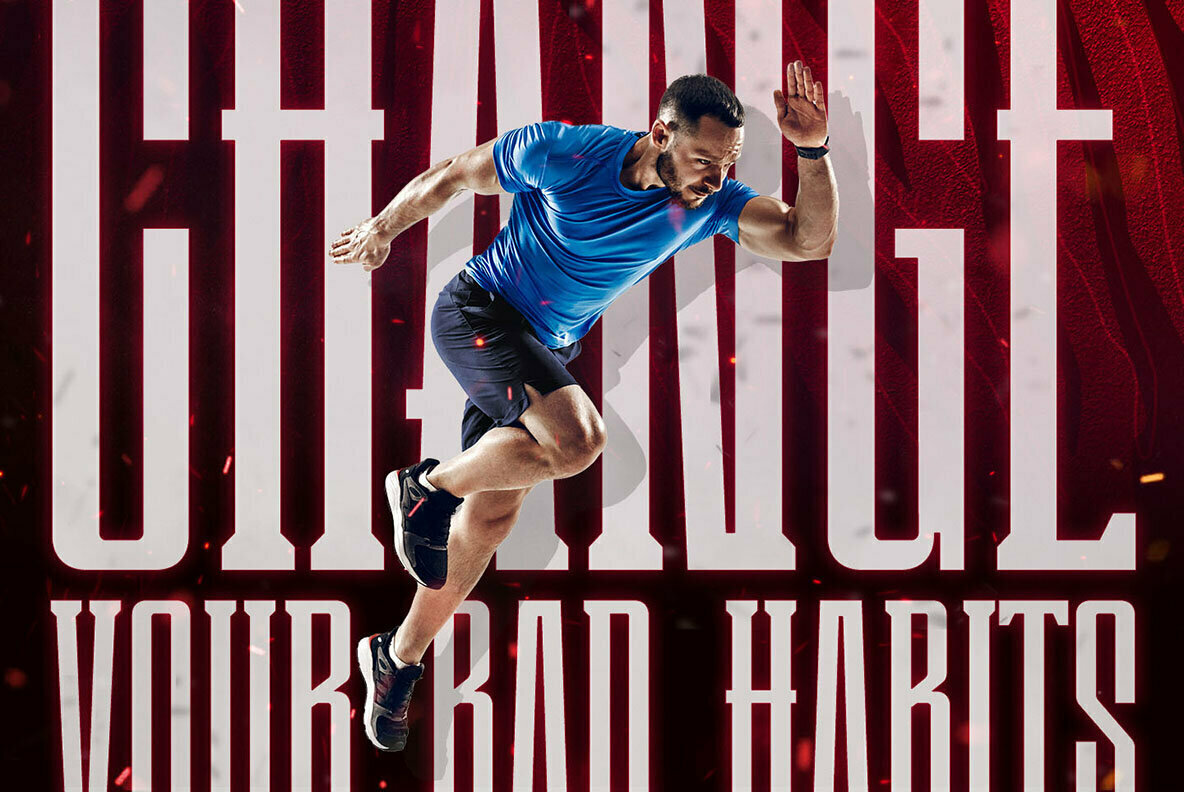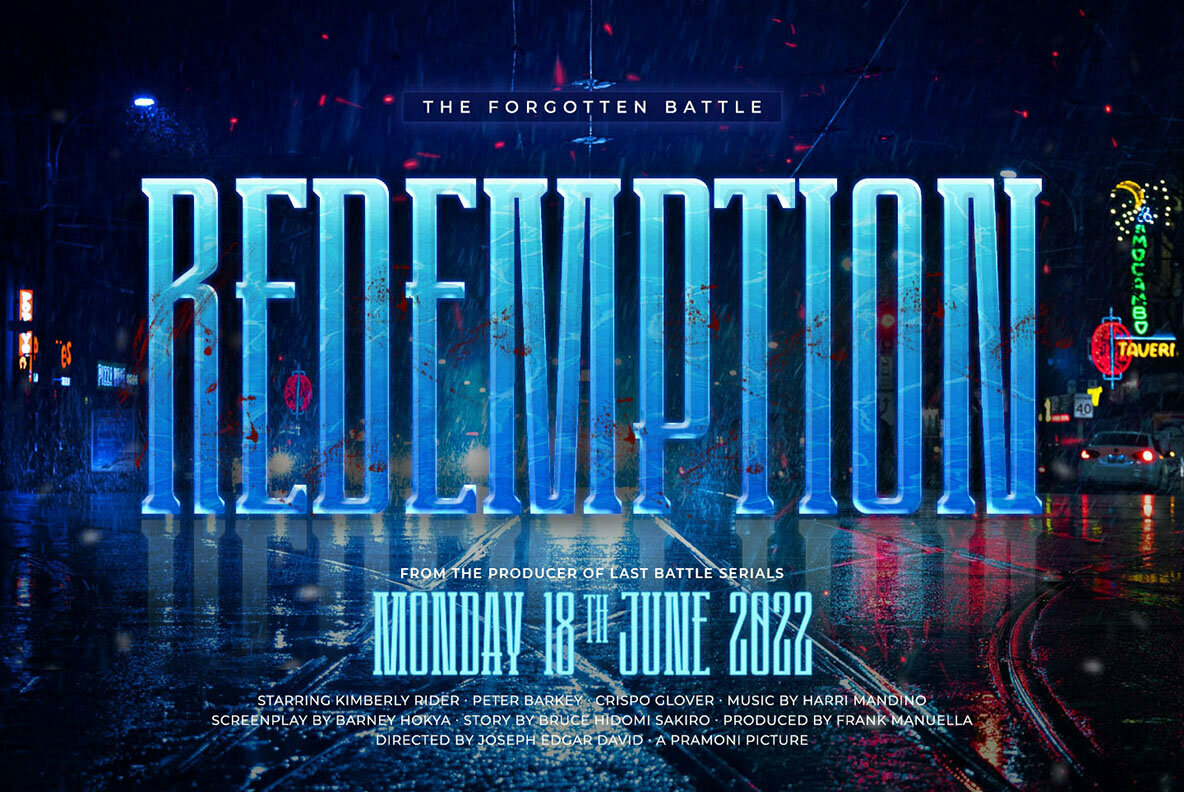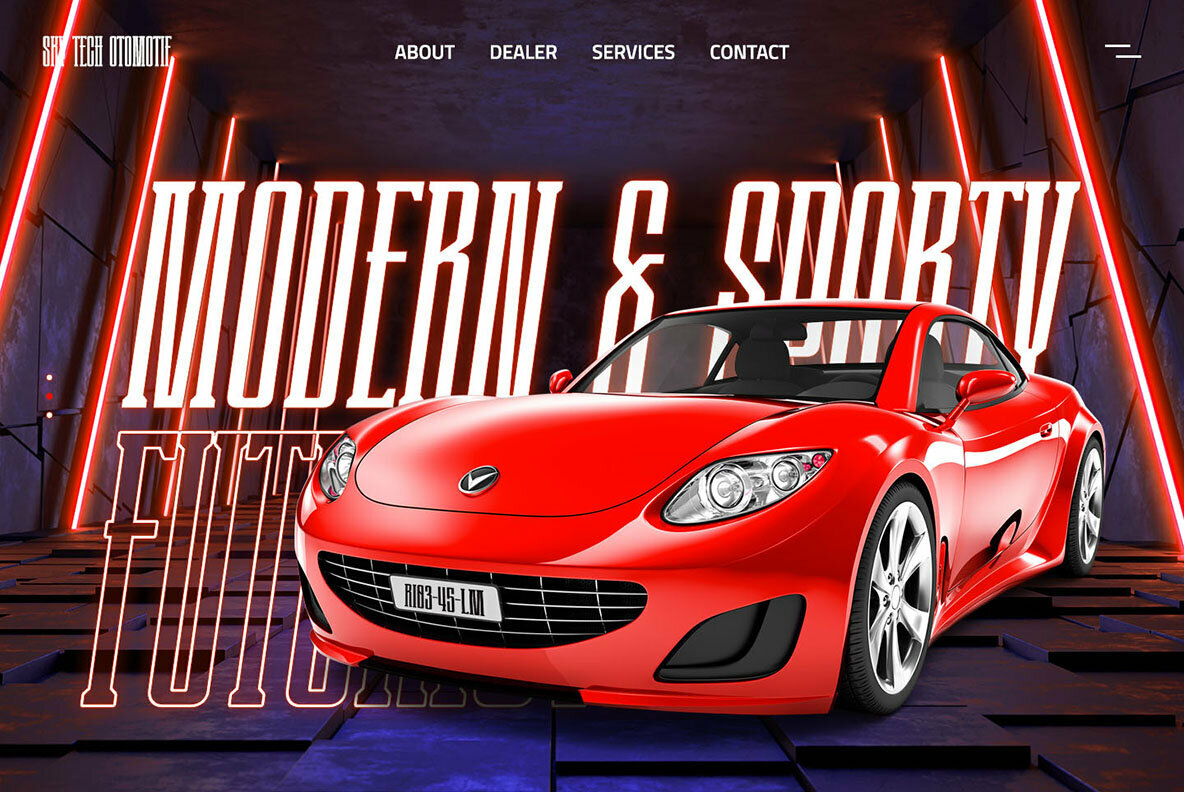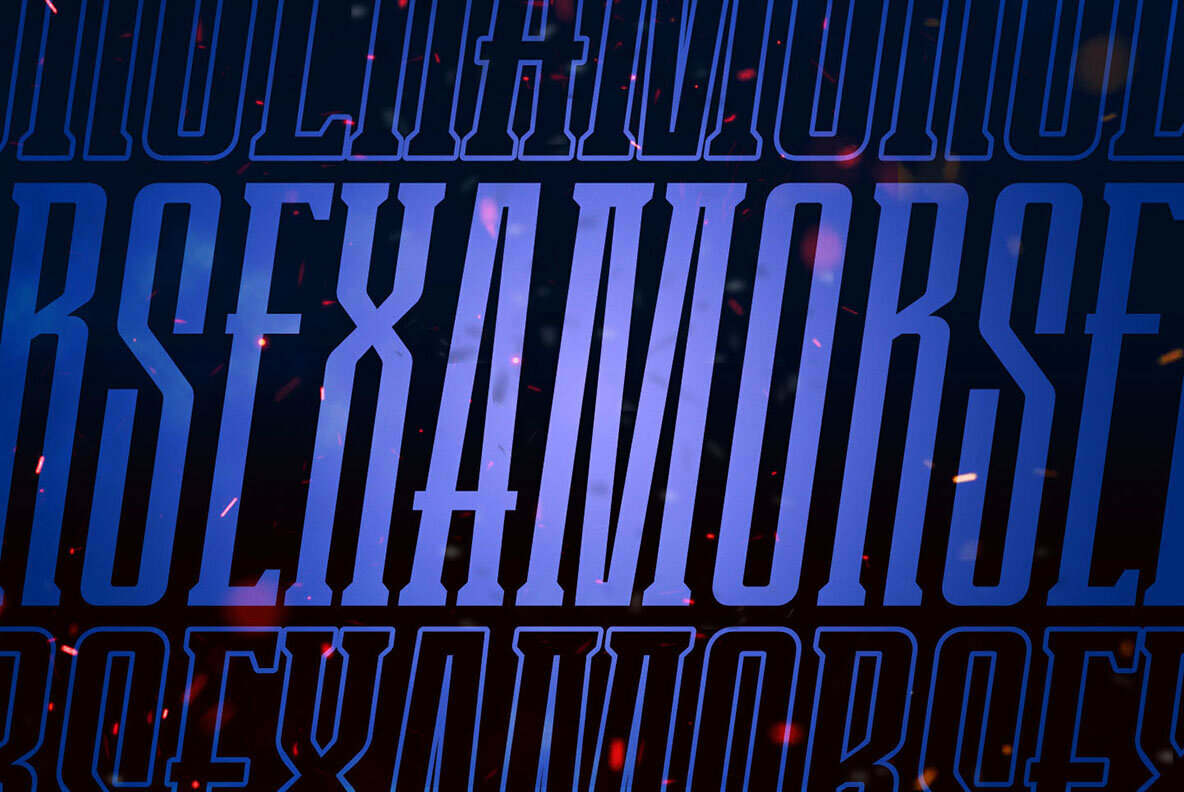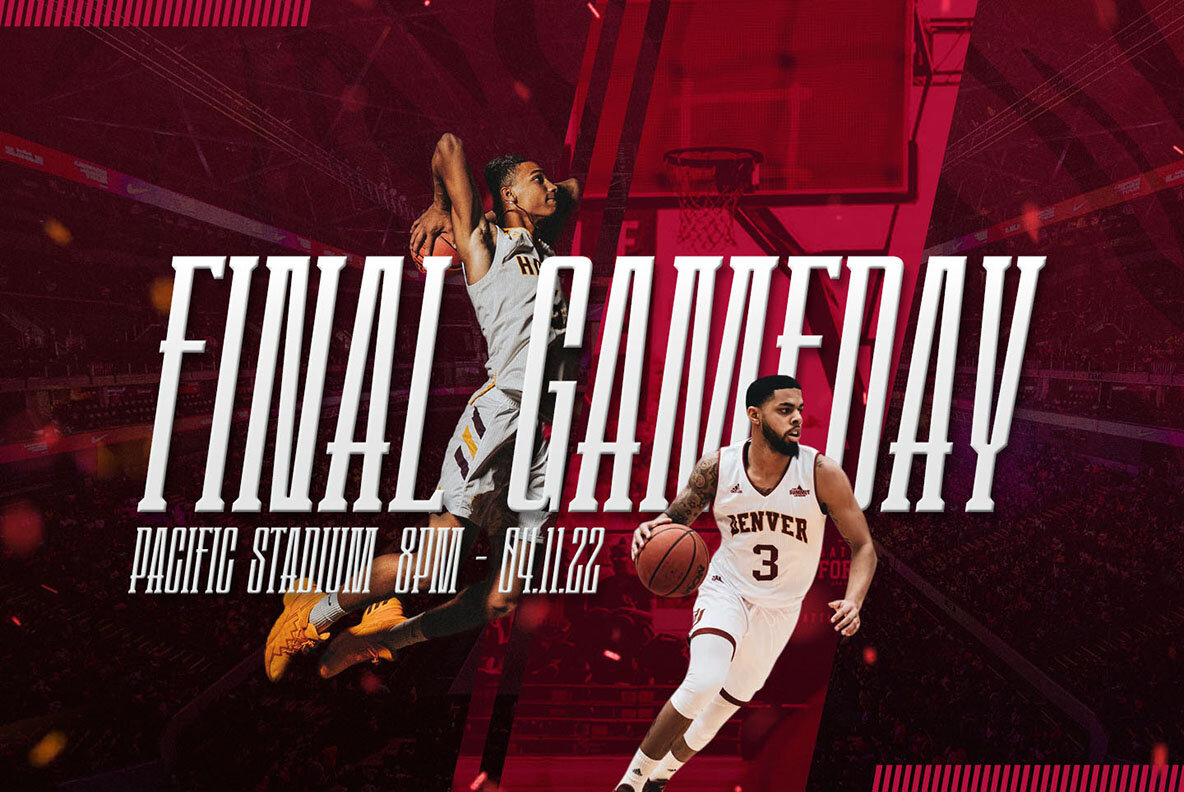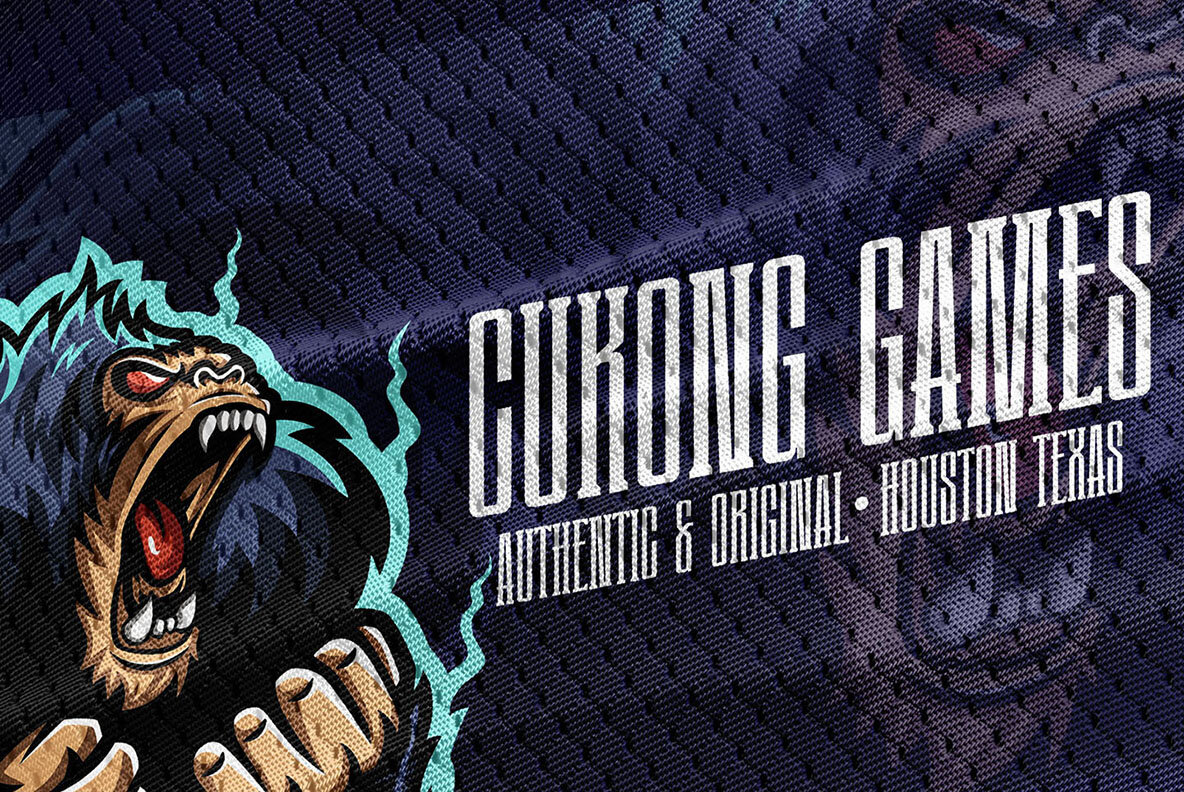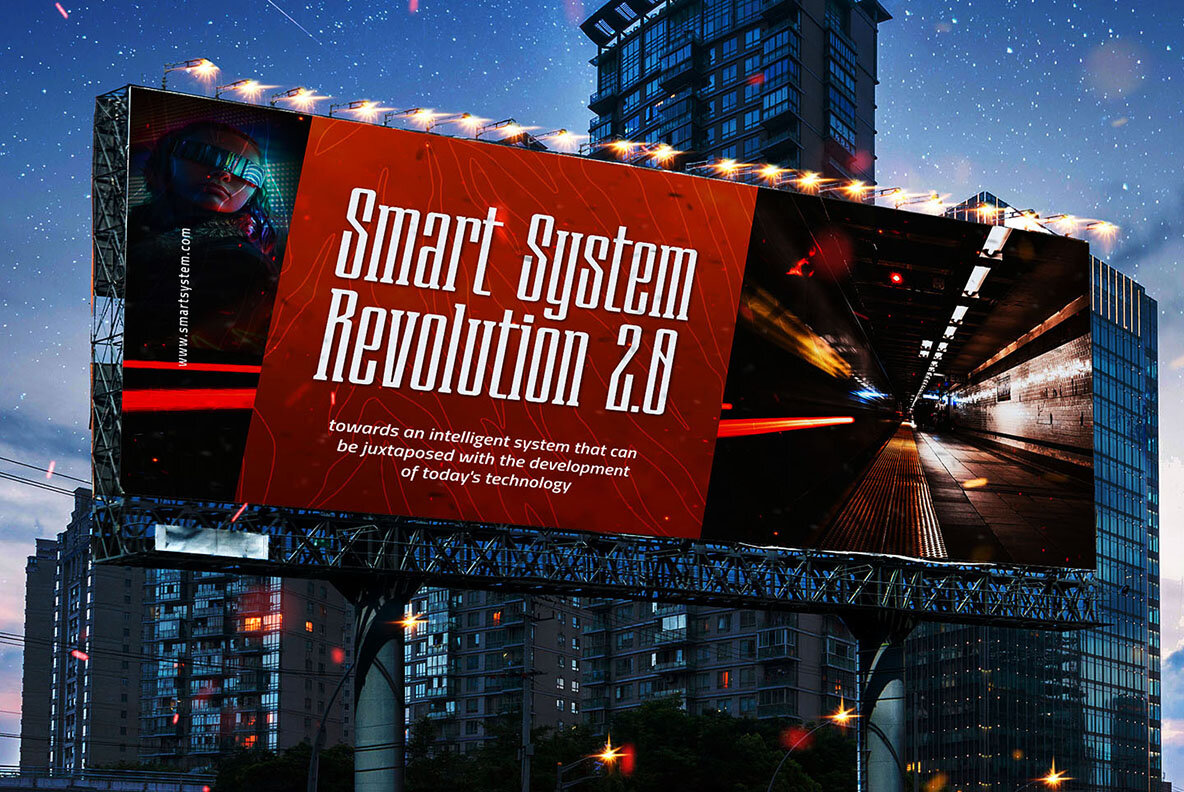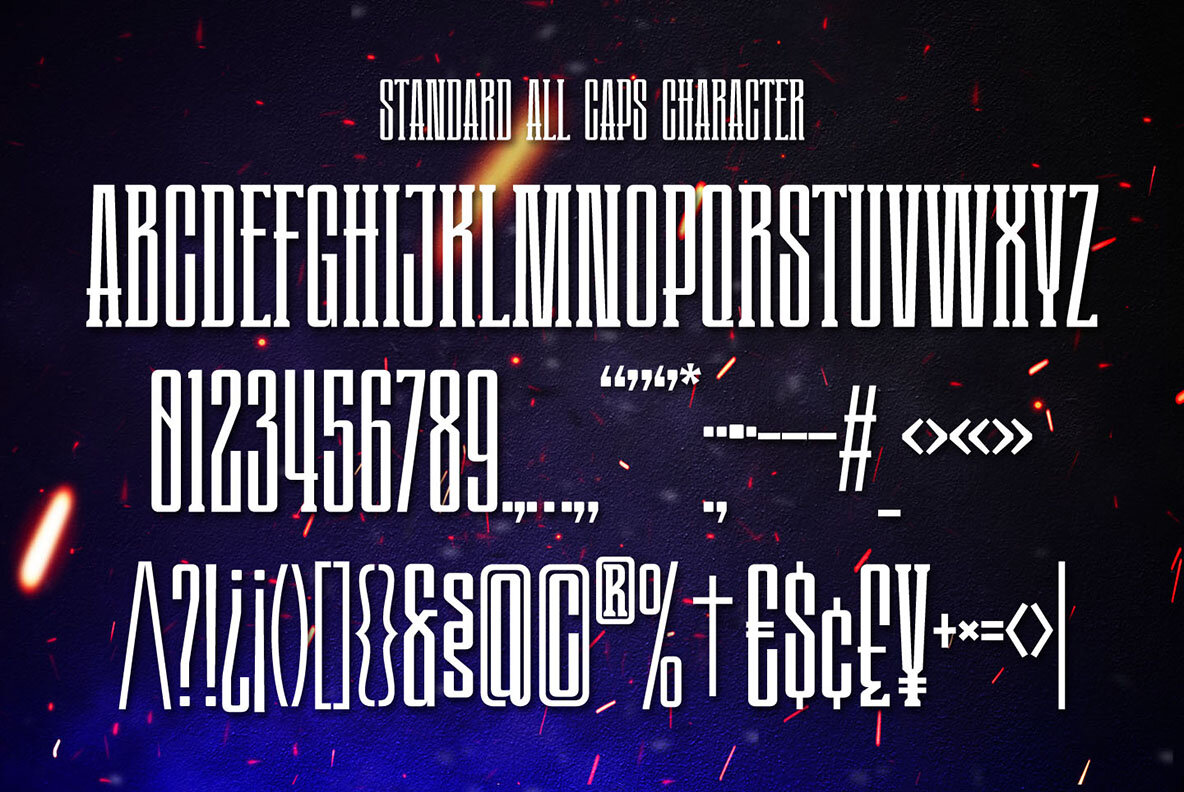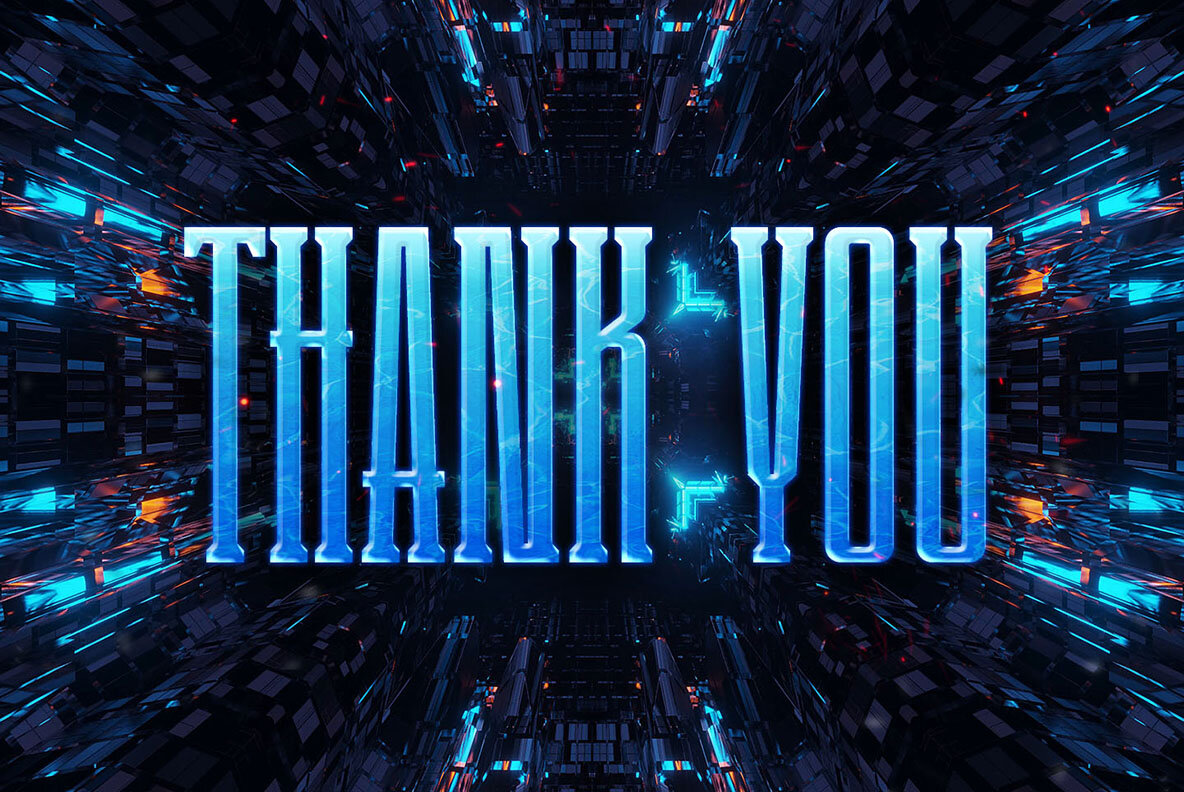
Examors Font
Examors Regular
Examors Oblique
Examors Oblique Outline
Examors Outline
Looking to add some extra oomph to your sports headlines and design work? Then you need Examors, the ultimate sports display font. This stylish yet powerful font comes in four styles – Regular, Outline, Oblique and Oblique Outline – perfect for posters, social media, and anywhere else you want to make a big impact. Don't hold back – let Examors take your work to the next level!